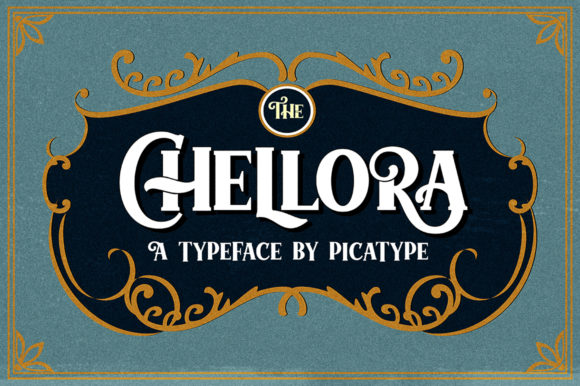
Introducing Chellora Font, the flamboyant and enticing display font by Picatype Studio. This enthralling creation offers an unprecedented visual symphony that combines old-world elegance with a contemporary verve. Its charming curves, retro undertones, and a touch of nostalgia will transport you back in time while keeping your designs firmly rooted in the present.
Chellora's versatility is as remarkable as its beauty. Its diverse range of applications knows no bounds – from branding and marketing campaigns to packaging, posters, and even eye-catching headlines. Picture it gracing your website, adding an instant touch of sophistication and allure. Or envision it adorning your social media posts, captivating your audience with its undeniable charm. Chellora's innate ability to transform ordinary text into an extraordinary visual spectacle will leave a lasting impression wherever it appears.
This vintage gem is not merely a font but a design chameleon that adapts seamlessly to your creative vision. With its playful yet sophisticated persona, Chellora adds a timeless allure to invitations and greeting cards, effortlessly elevating them into exquisite works of art. Its graceful strokes bring depth and character to logos, creating a striking visual identity that demands attention. The possibilities are truly endless, and only your imagination can limit Chellora's transformative power.
This font's versatility and captivating charm will bring life to any project, making it an indispensable tool for designers, marketers, and creative professionals alike. With just a few clicks, you can harness the power of Chellora to transform your designs into enchanting works of art that evoke nostalgia, elegance, and a touch of playful charm. Embrace the allure of Chellora and let your creativity soar beyond the boundaries of the ordinary.